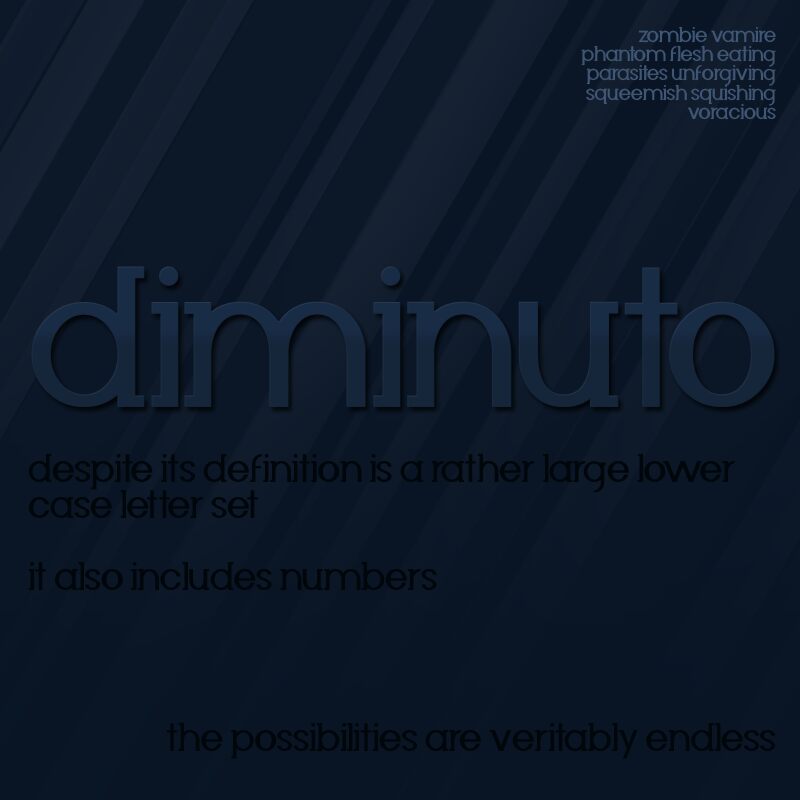
Diminuto by Your Company is a free geometric sans serif with broad, rounded forms and a dense, confident silhouette. Tall ascenders sharpen its otherwise circular profile.
It can turn a wordmark into a compact band of lettering, especially for fashion labels and contemporary retail branding. Album covers and event posters also suit its smooth curves and tightly fitted rhythm. Across these uses, the oversized round shapes make the type feel closely tied to graphic logos and simple geometric artwork.
This font has been worked on and refined for some time. It includes a lowercase letter set and a set of numbers. The creator is also using it as a reference for a new sans serif font.